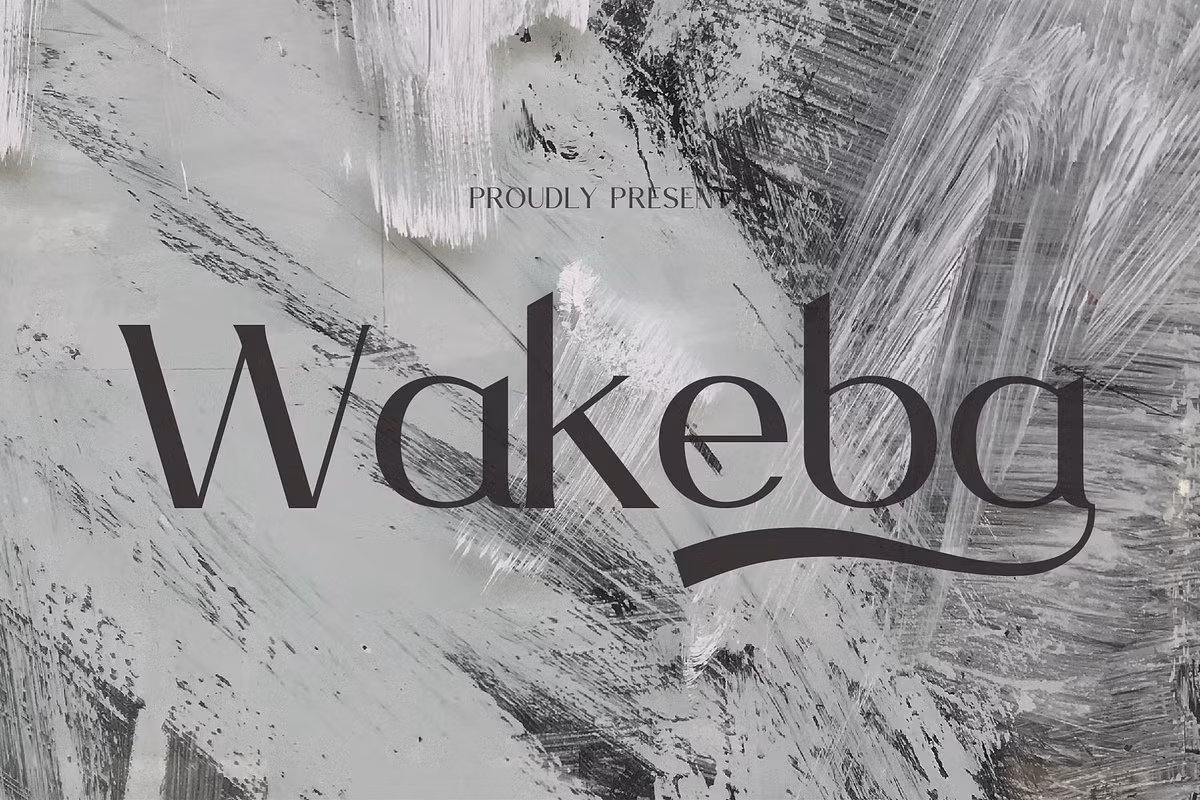
Wakeba Serif Font Free Download is a modern and elegant serif typeface designed to bring sophistication and timeless charm to your designs. Featuring well-crafted letterforms with subtle curves and strong serifs, Wakeba is perfect for high-end branding, editorial layouts, packaging, logos, and more. Its sleek, balanced appearance ensures excellent readability, while adding a touch of luxury and professionalism.
Whether you're designing for a fashion brand, creating an upscale product label, or working on editorial content, Wakeba adds class and visual appeal to any project.